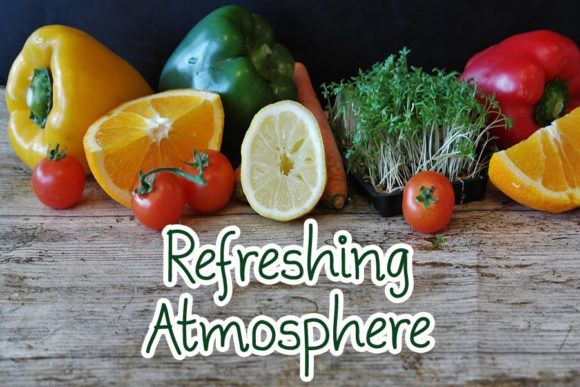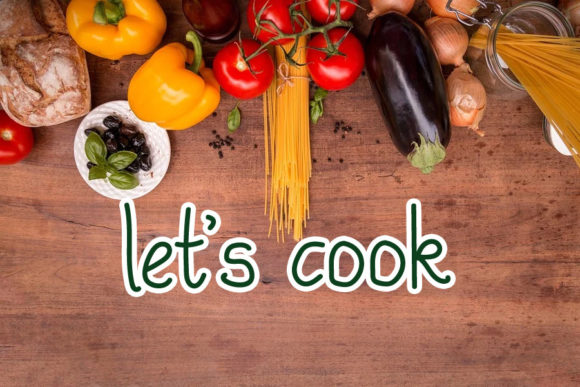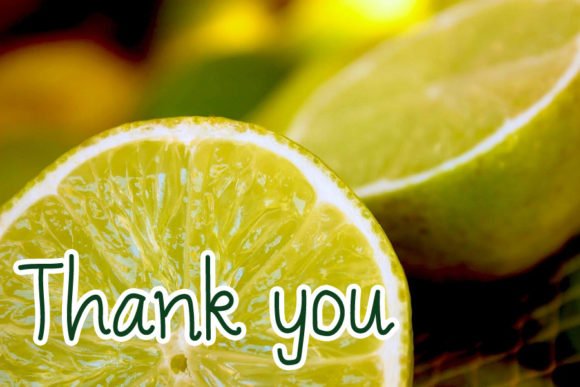
Lemon Fress Font
About Lemon Fress Font
Lemon Fress is a fresh and beautiful handwritten font good for Youtube banners, Cover Logo Mockups, Wedding Invitations, Id Cards, Flayer, Crafts. By using this font, your business will progress and develop. Apart from that, this font is simple and unique.